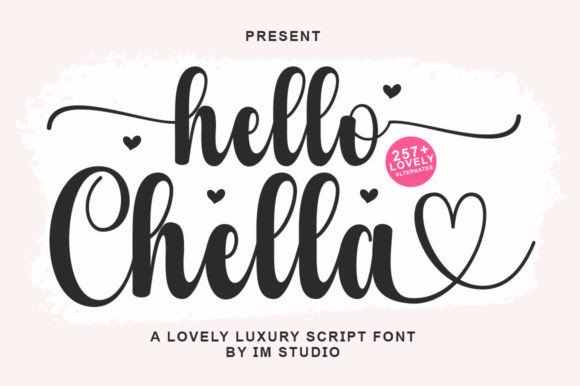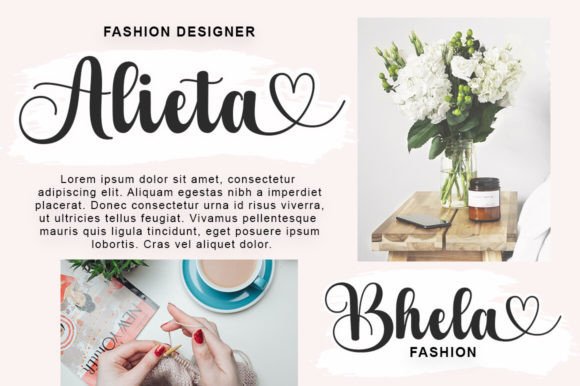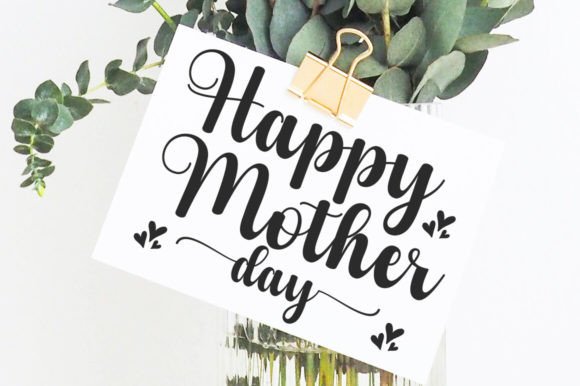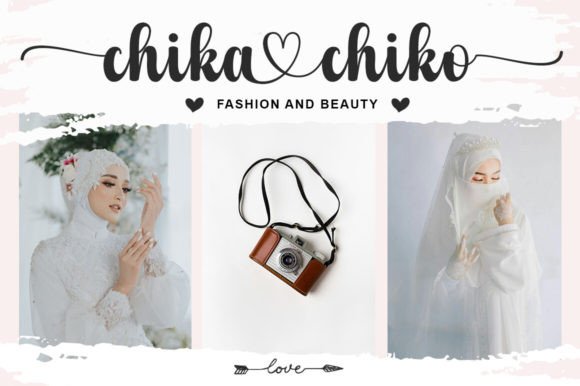
Hello Chella Font: Romantic Script for Wedding & Logo Design
About the Hello Chella Font
Make a bold statement with Hello Chella Font, a powerful and memorable font. Enhance your wedding and branding projects with the enchanting “Hello Chella Font”. This script font seamlessly combines elegance and romance, making it the perfect choice for wedding invitations, heartfelt messages, and distinctive logo branding and more.
Whether you are creating a wedding masterpiece or building a brand that speaks volumes about love and relationships, Hello Chella Font is your work of art. Give your project an essence of romance and refinement—choose Heart Style Fonts for a truly charming design experience!
Hello Chella Font Usage Examples
Hello Chella Font Example